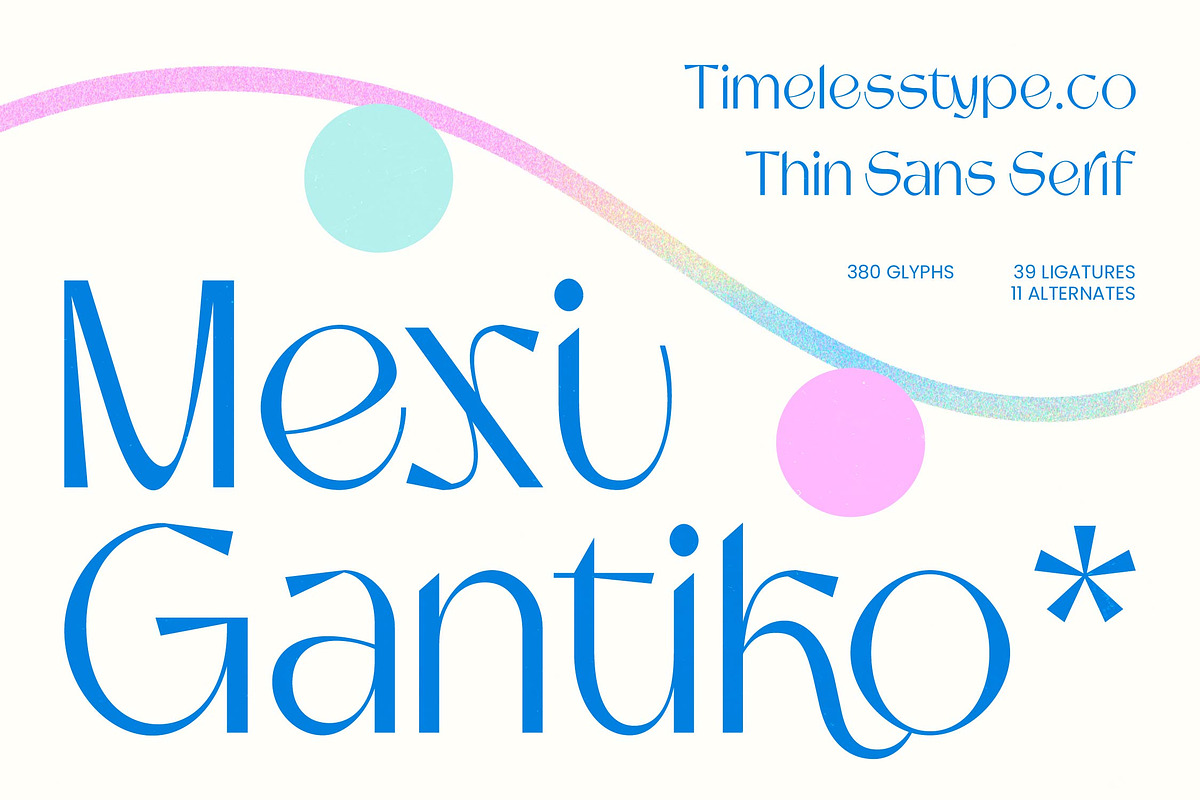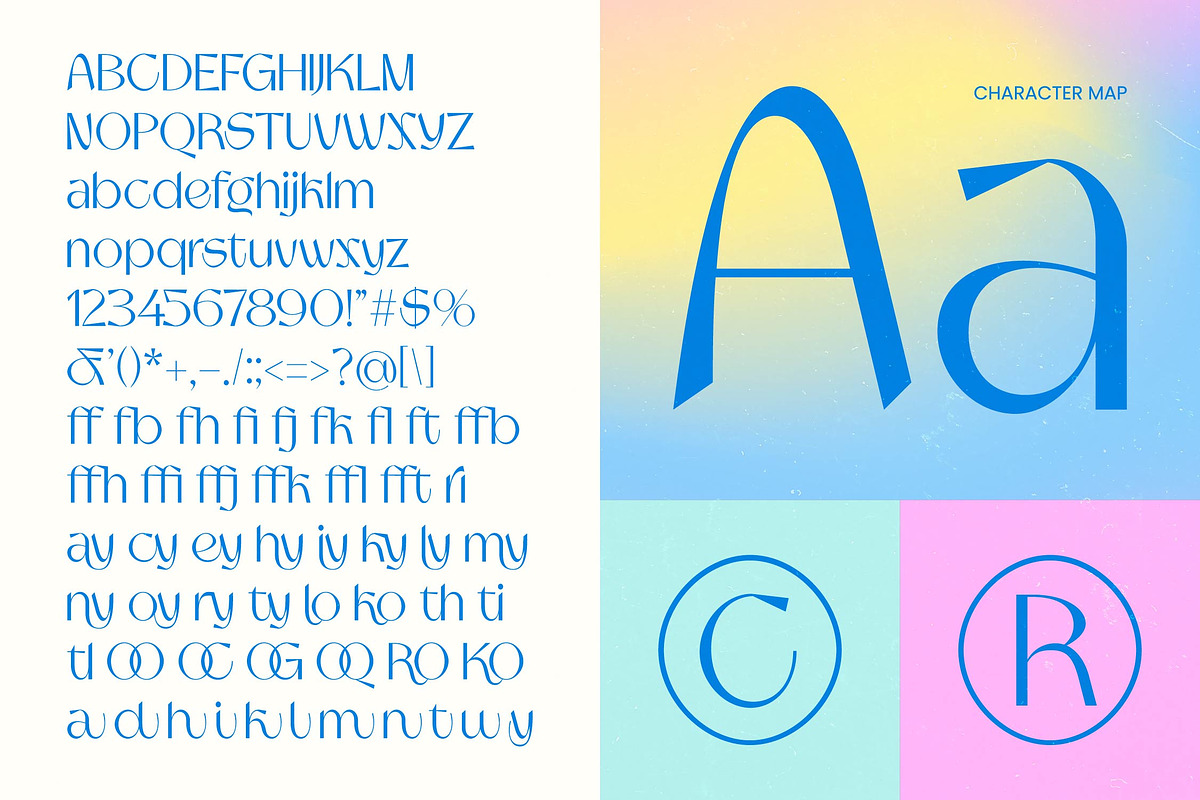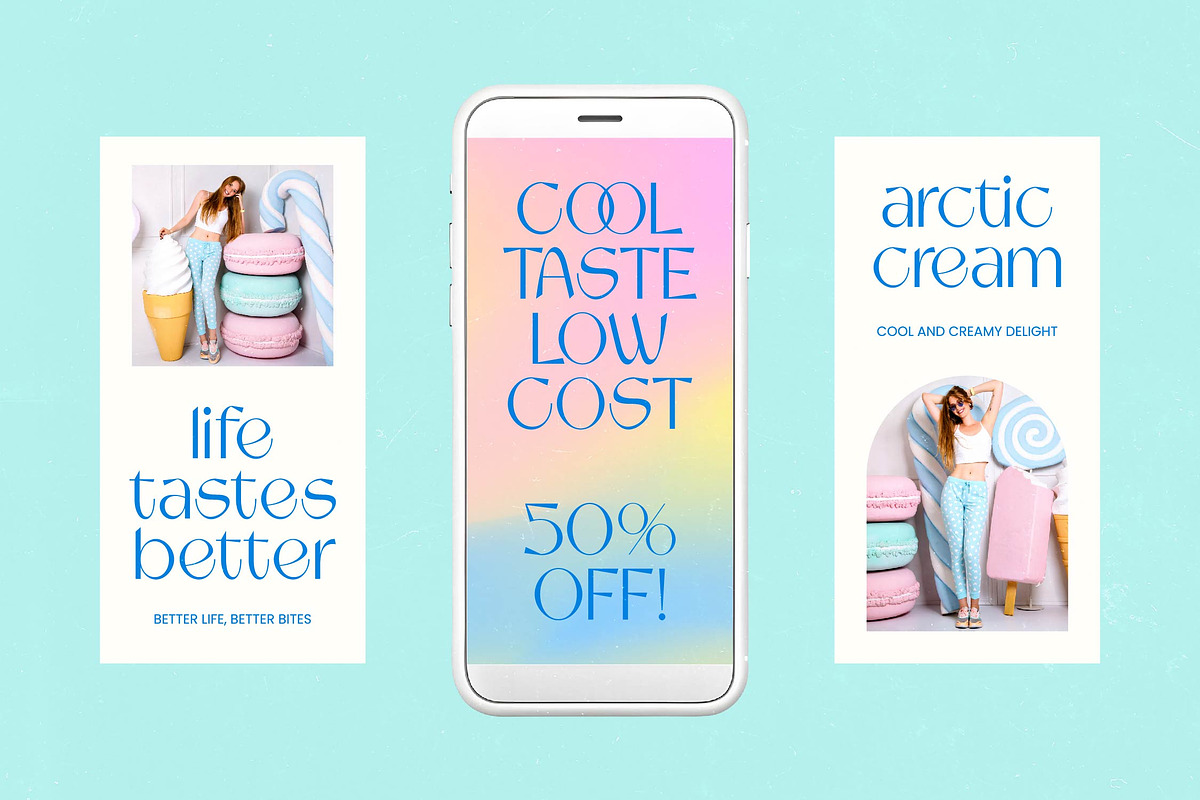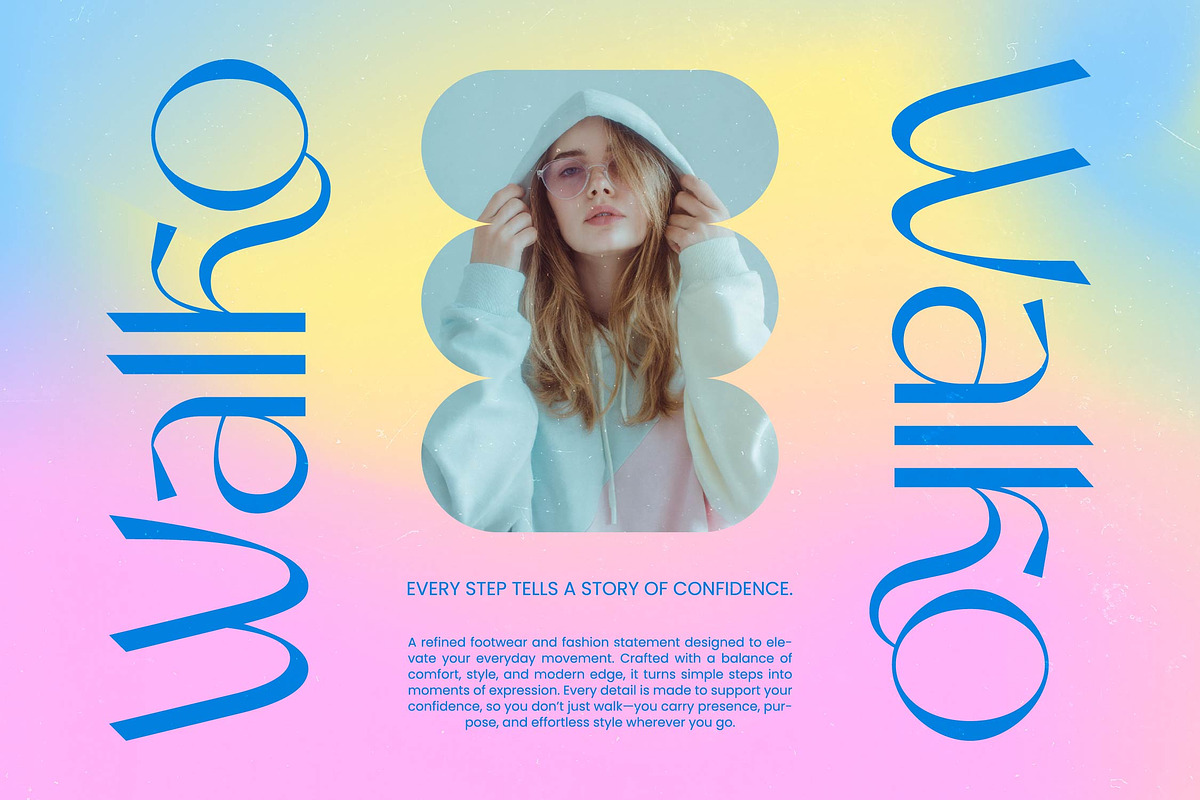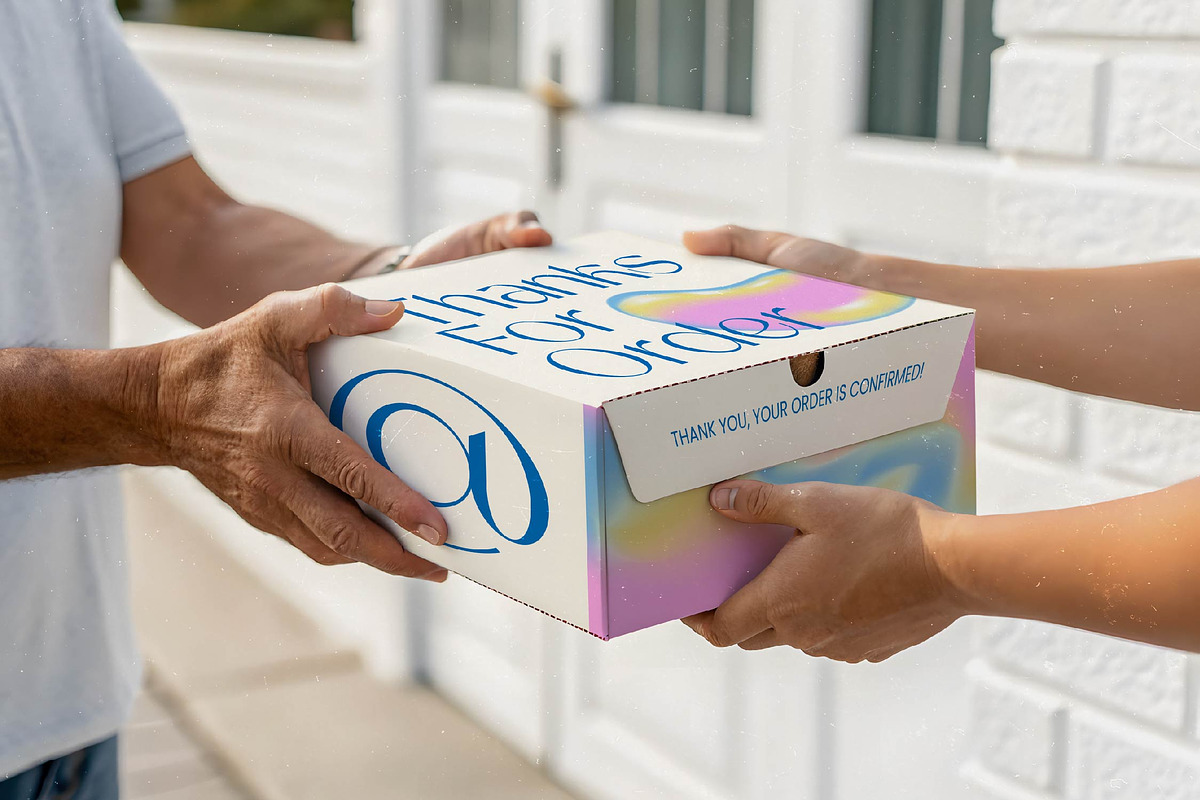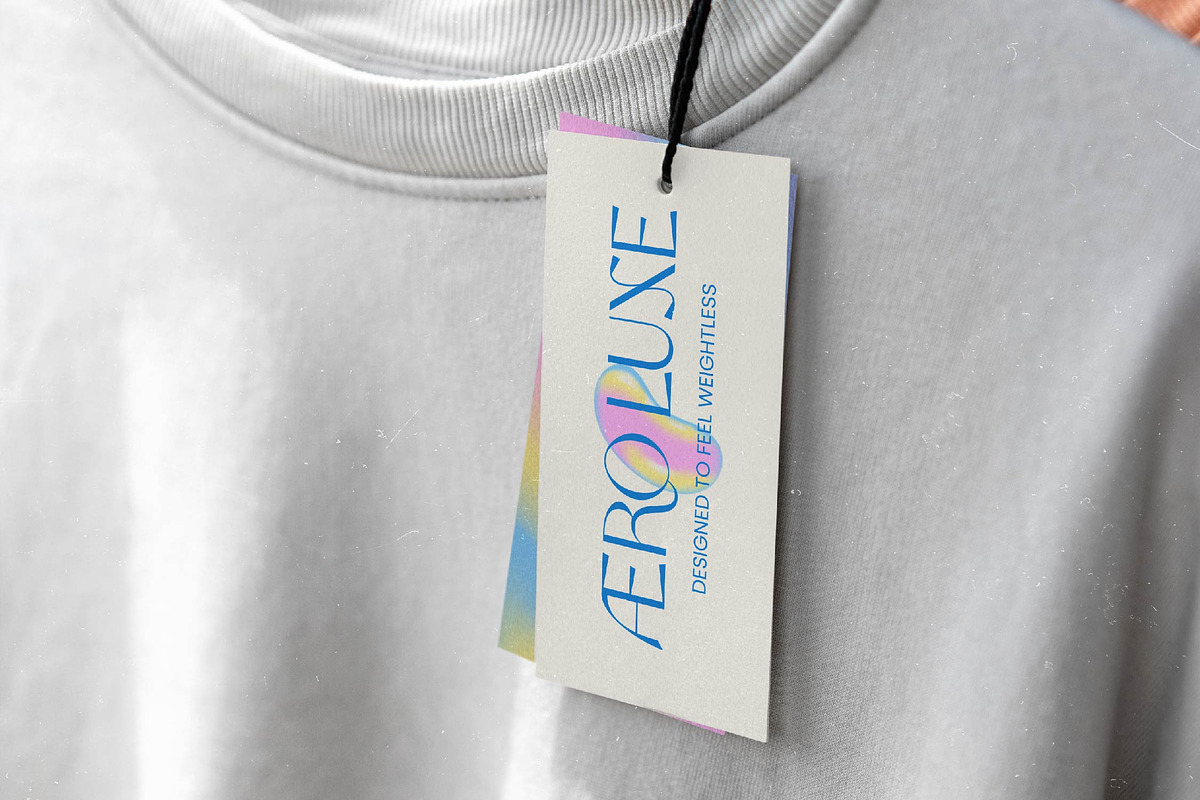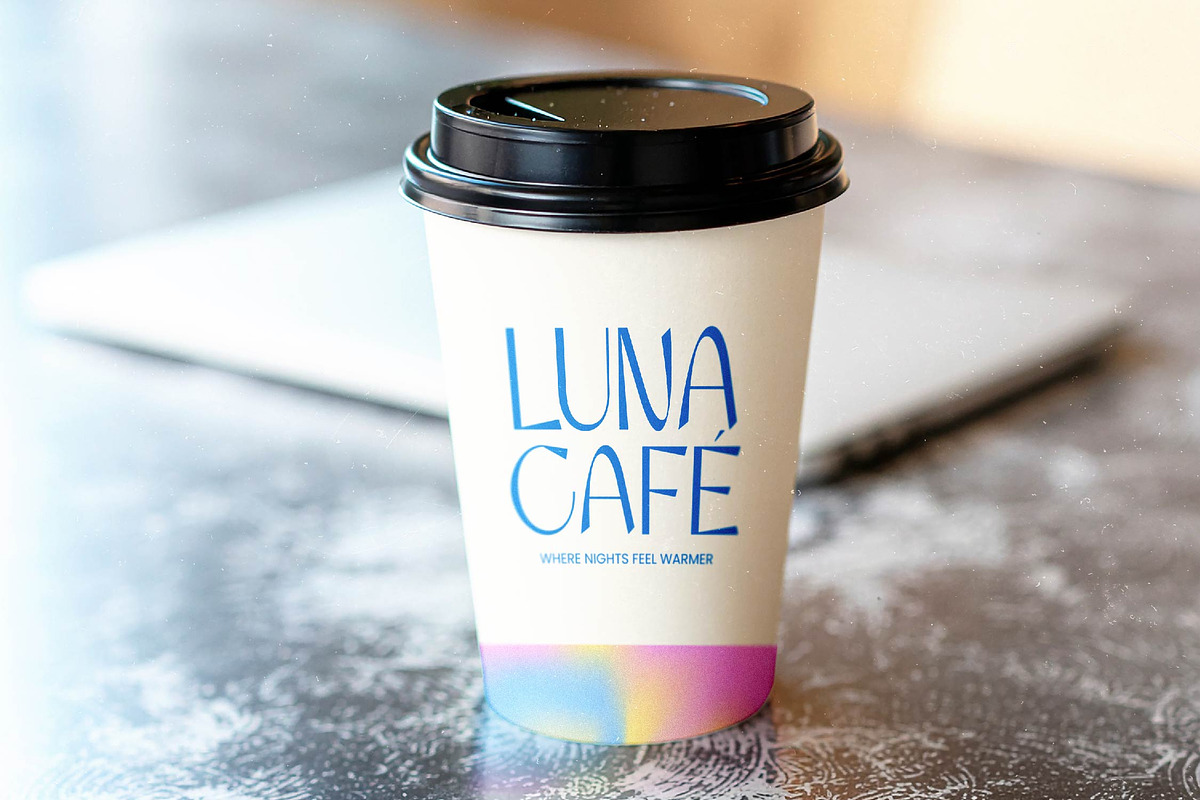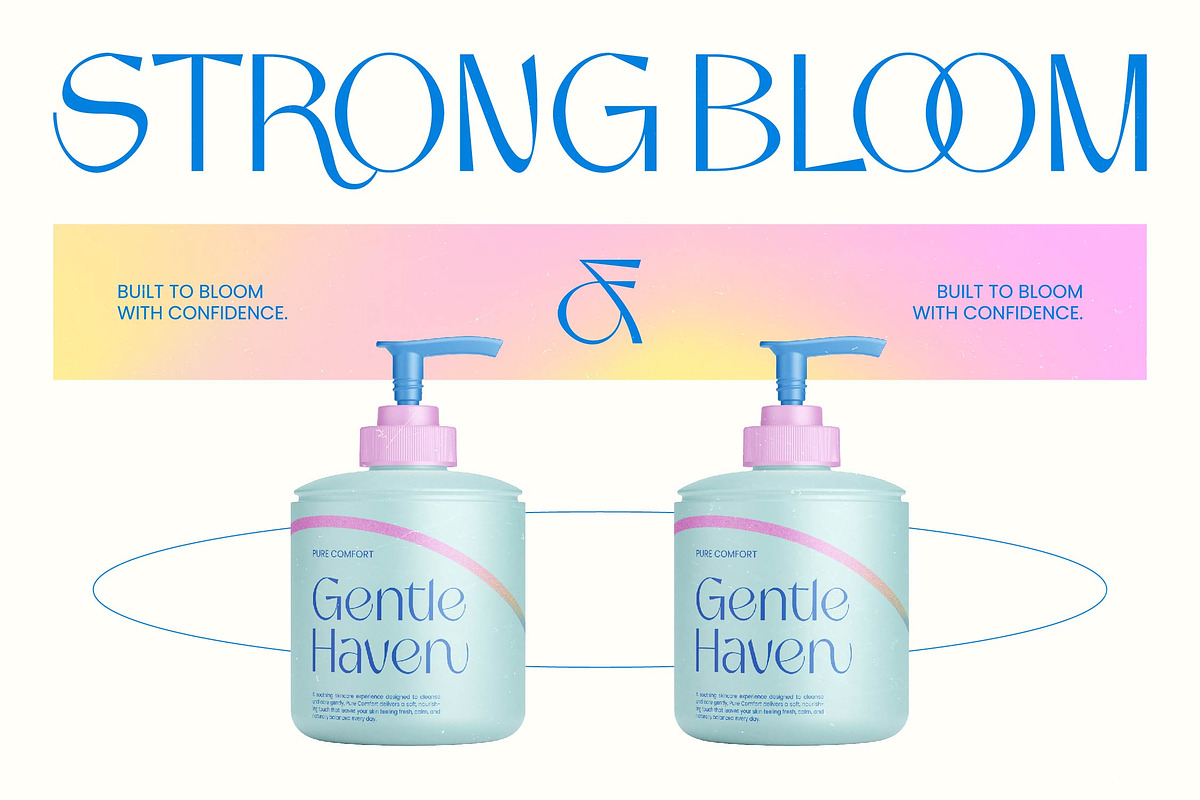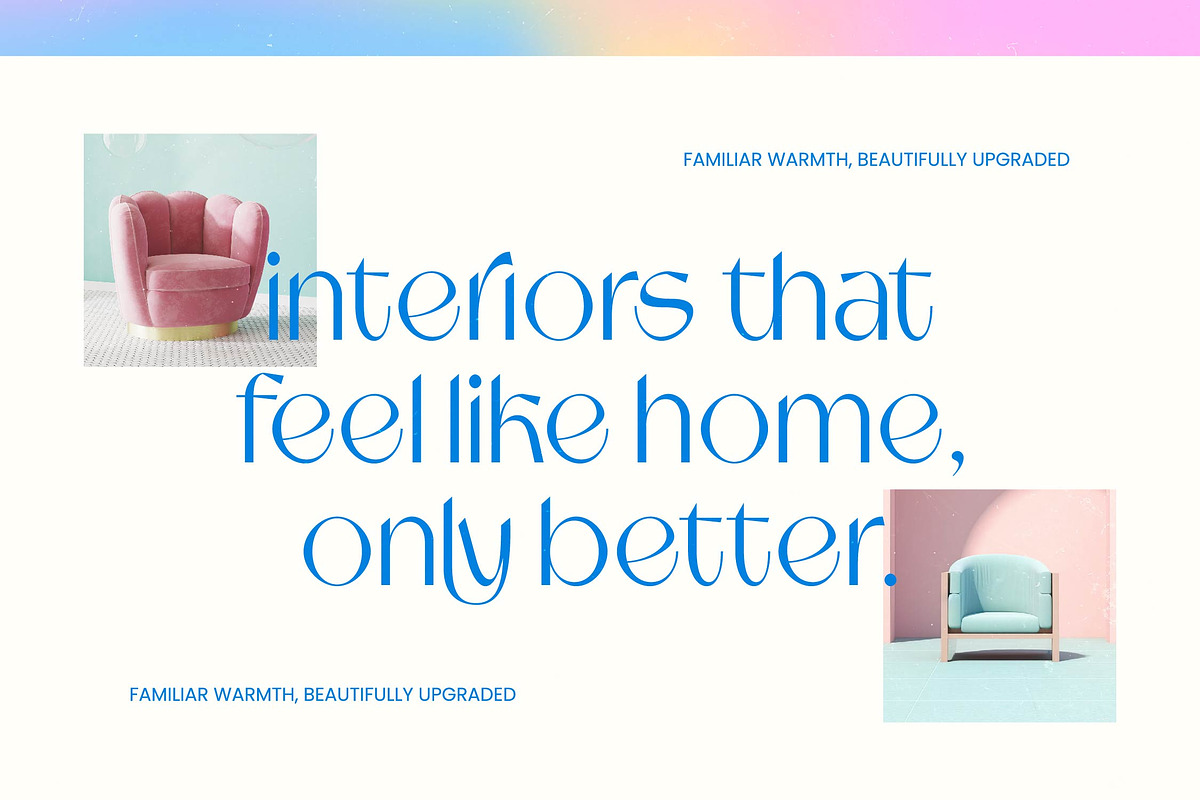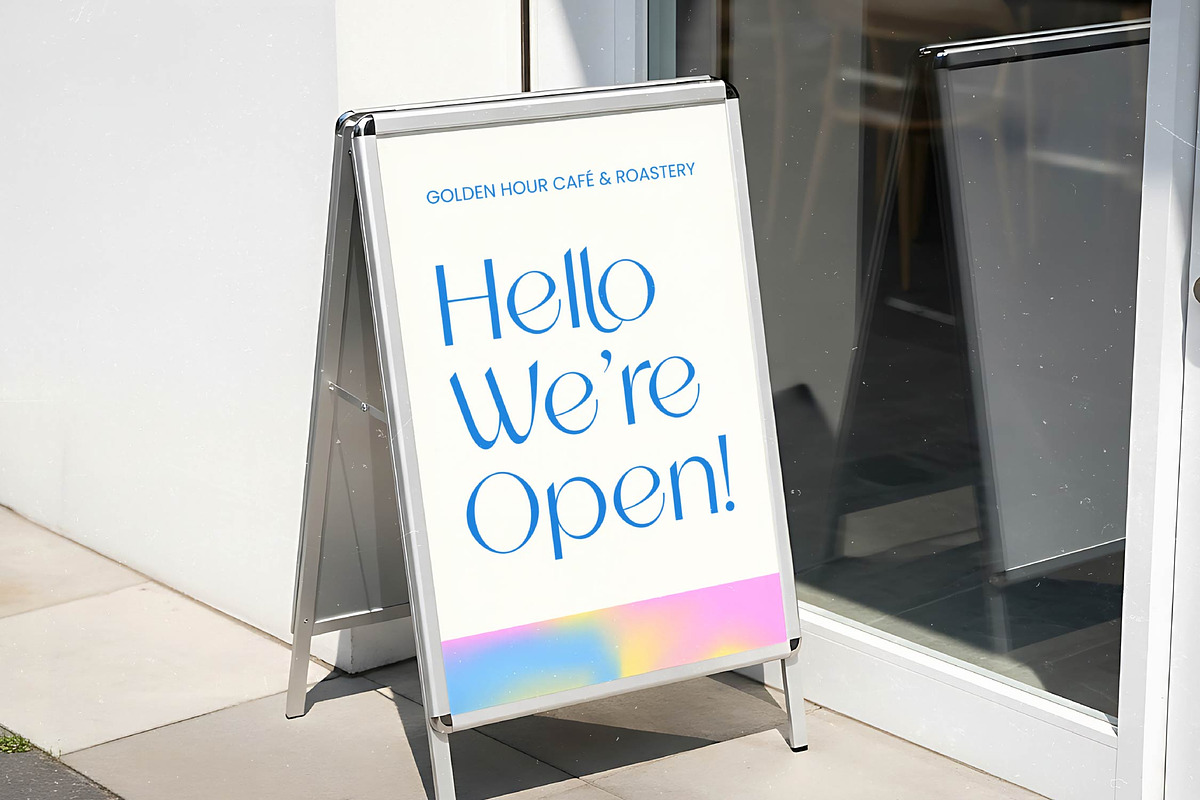
Mexi Gantiko Thin Sans Serif
Mexi Gantiko - Thin Sans Serif , Elevate your design projects with a touch of modern sophistication and refined grace. Mexi Gantiko - Thin Sans Serif is a masterpiece of contemporary typography, blending minimalist elegance with artistic flair. Its high-contrast strokes and delicate silhouettes create a captivating visual rhythm that is both striking and legible. This font is designed specifically for creators who demand a sophisticated aesthetic without compromising on modern clarity and professional poise.
Unlock unparalleled creative freedom with a robust set of typographic features designed for excellence. Offering an impressive library of 380 glyphs, including 39 unique ligatures and 11 alternates, Mexi Gantiko - Thin Sans Serif allows for deep customization and truly bespoke compositions. The fluid transitions between characters provide a premium feel that elevates any professional layout. With its extensive multilingual support, Mexi Gantiko - Thin Sans Serif adapts seamlessly across global markets, making it incredibly versatile for international projects.
Transform your brand identity with a typeface built for high-end impact and lasting impressions. Mexi Gantiko - Thin Sans Serif is the perfect solution for luxury branding, high-fashion editorial design, and premium packaging. Whether you are crafting a chic logo for a boutique brand or designing a high-end magazine spread, this font provides the visual gravity needed to capture high-value attention. It is also an ideal choice for social media graphics, wedding stationery, and luxury web headers.